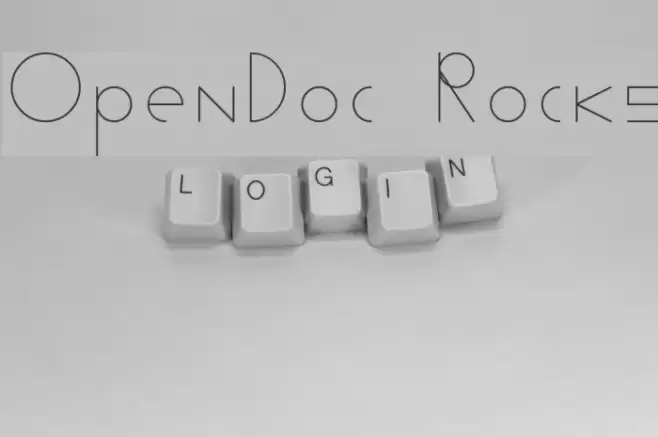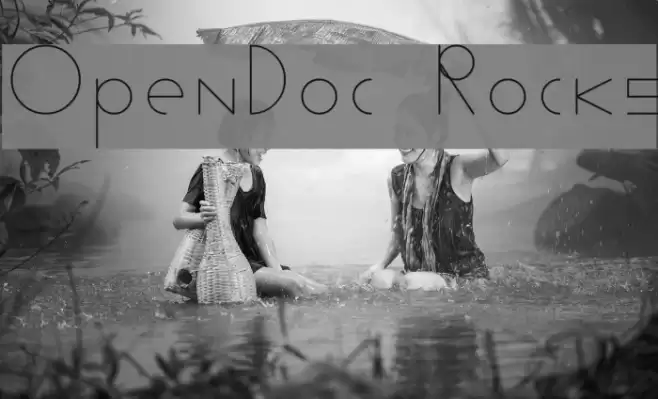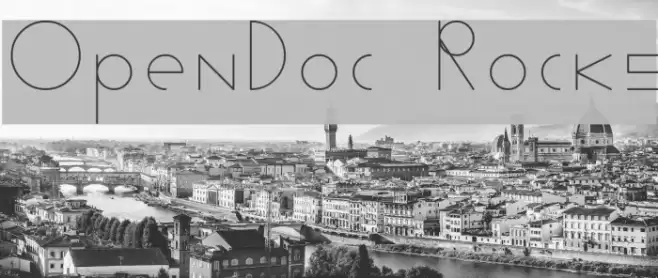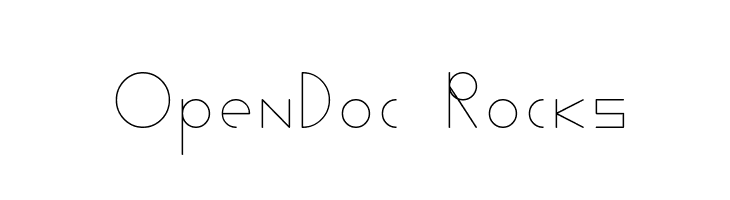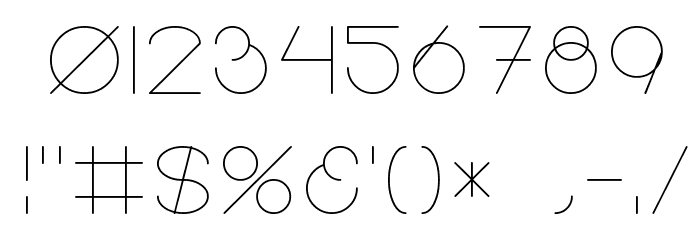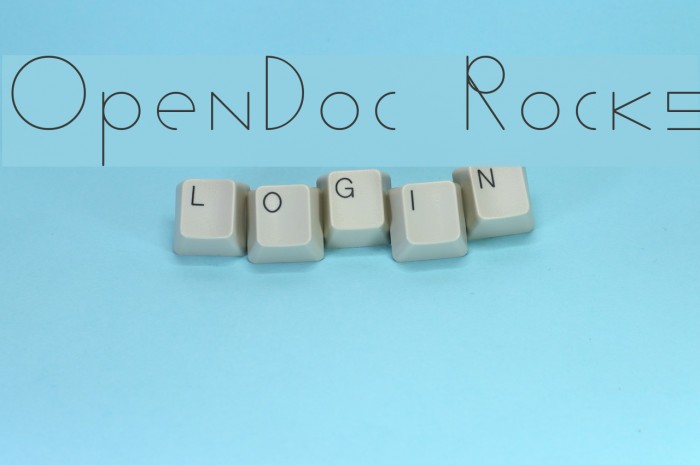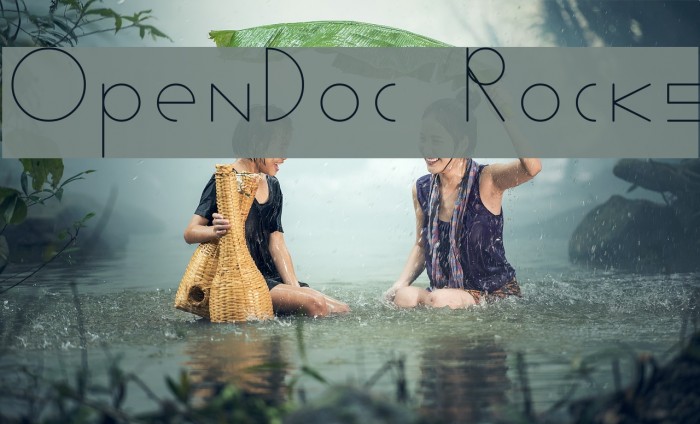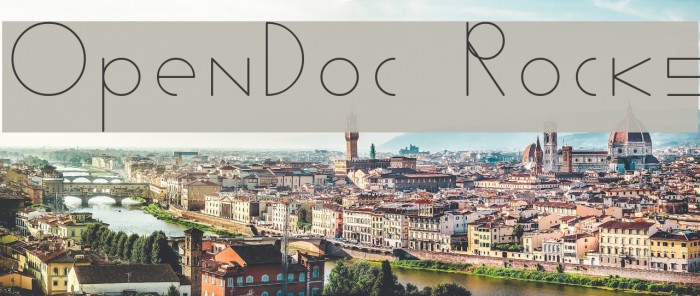
OpenDoc Rocks Font
OpenDoc Rocks Description
This font features a minimalist and geometric design, characterized by thin, uniform lines and a modern aesthetic. The uppercase letters are constructed with straight lines and sharp angles, giving them a sleek and contemporary look. The lowercase letters maintain a similar geometric style, with some characters incorporating subtle curves that add a touch of softness to the overall design. The numerals are consistent with the letterforms, maintaining the clean and precise lines. Special characters are designed with the same attention to detail, ensuring a cohesive appearance throughout the font. This typeface is ideal for projects that require a modern and sophisticated touch.
A minimalist, geometric font with thin lines and a modern aesthetic from Uncategorized fonts.
- Proposed Projects: Ideal for branding, modern web design, tech startups, and minimalist posters.